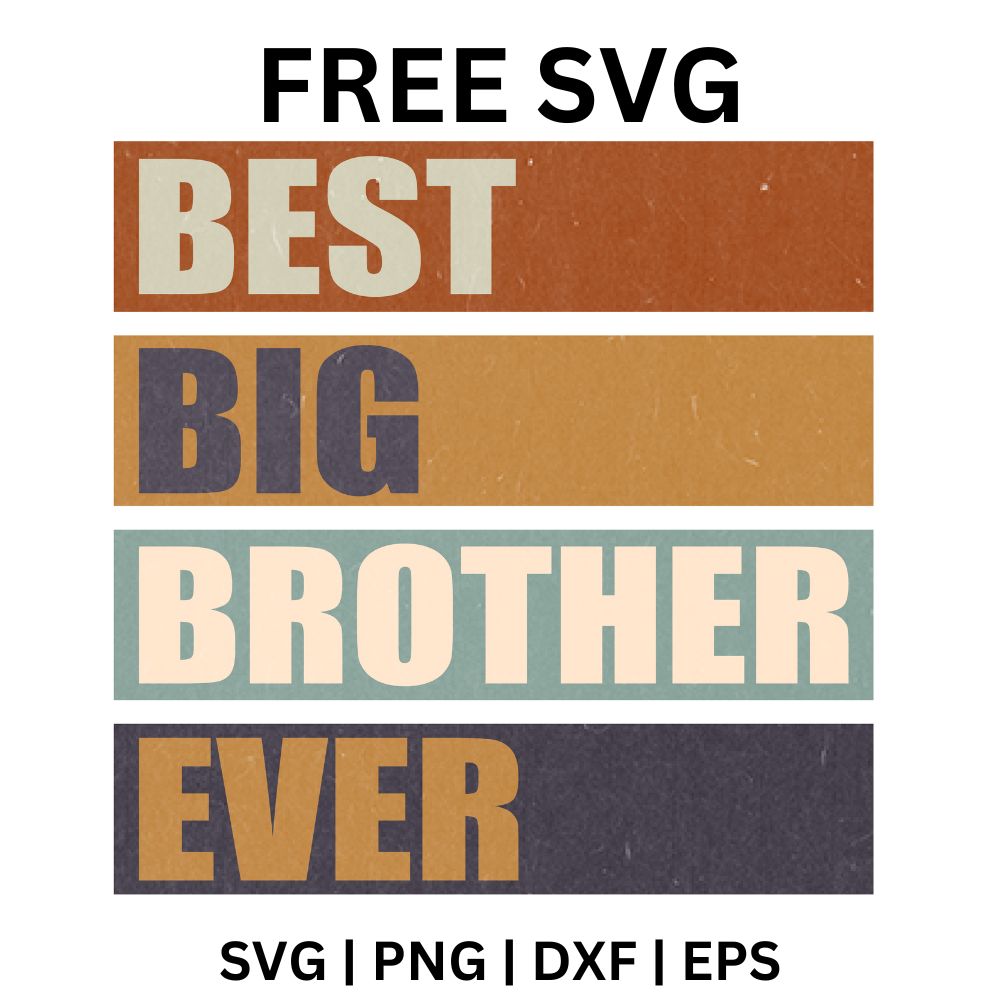
Best Big Brother Ever SVG Free | Retro Block Font Design for Cricut & Silhouette
Download our retro-inspired Best Big Brother Ever SVG – a bold block font design that brings vintage flair to sibling pride. Keywords: best big brother ever svg, retro font svg, bold typography, vintage brother svg, cricut cut file, silhouette brother svg, svg for boys. Formats: SVG, PNG, EPS, DXF. Project Ideas: retro-style shirts, wall art, mugs. Compatible With: Cricut, Silhouette Cameo, Brother ScanNCut.